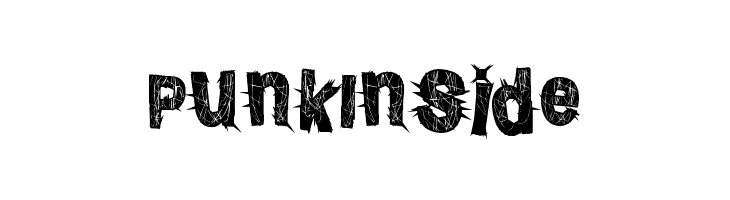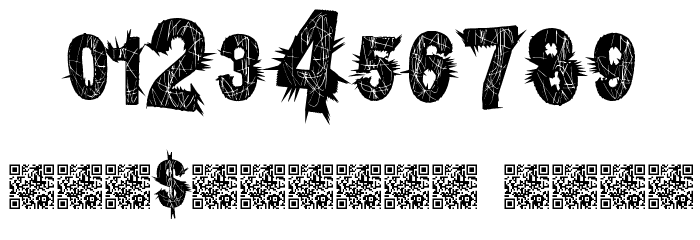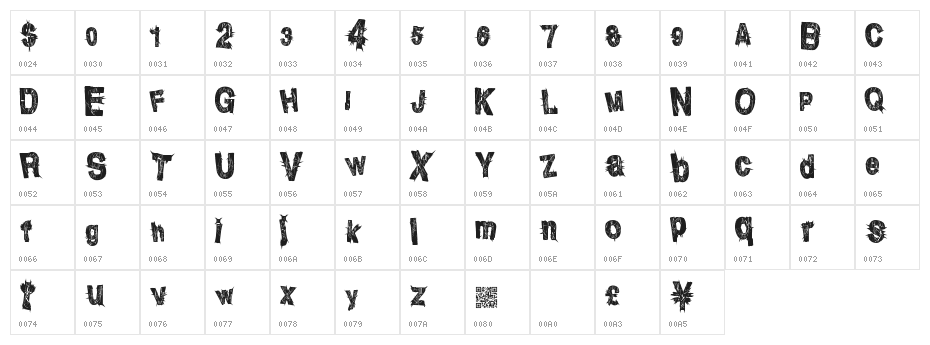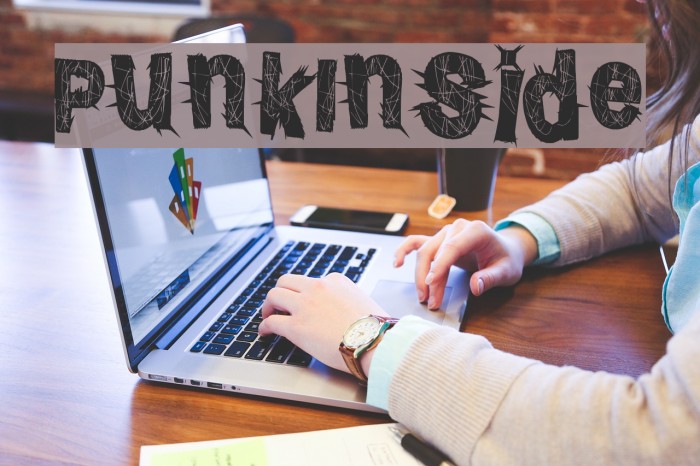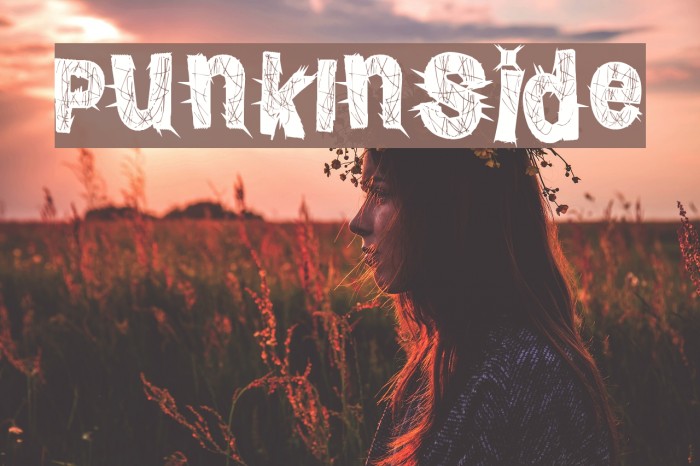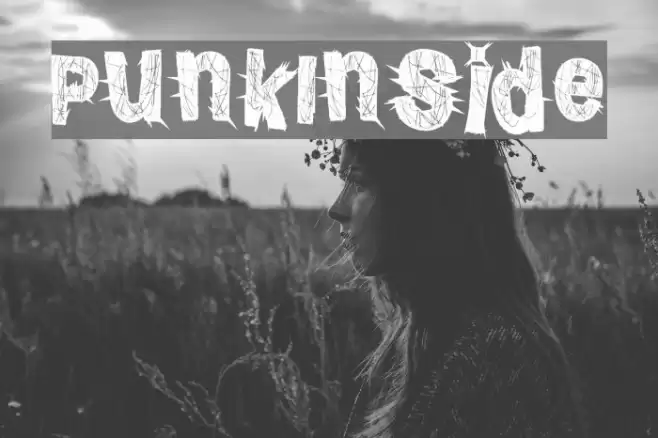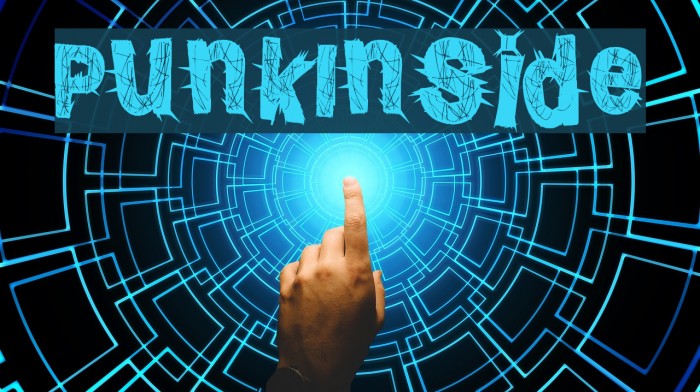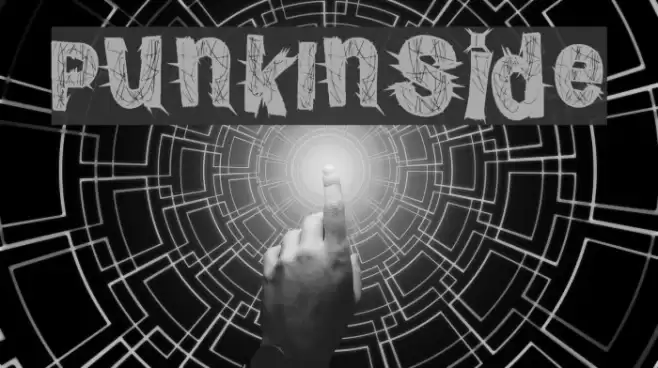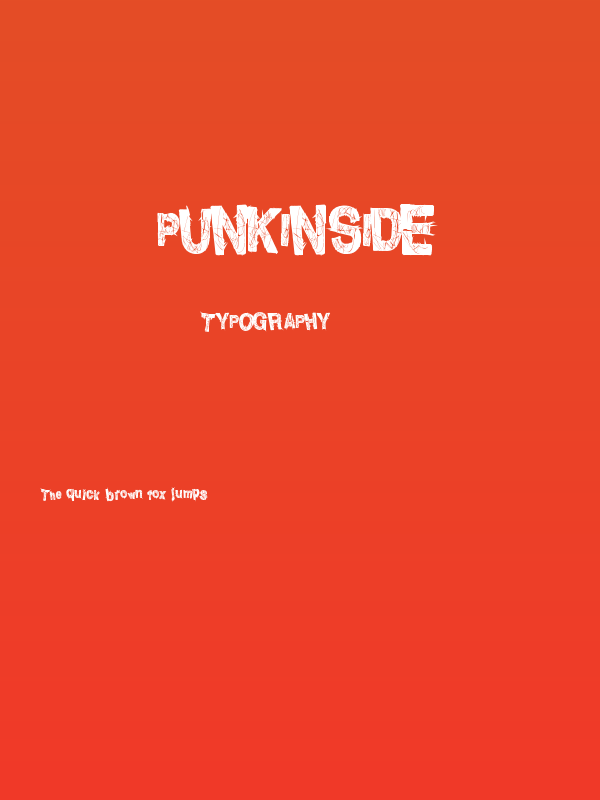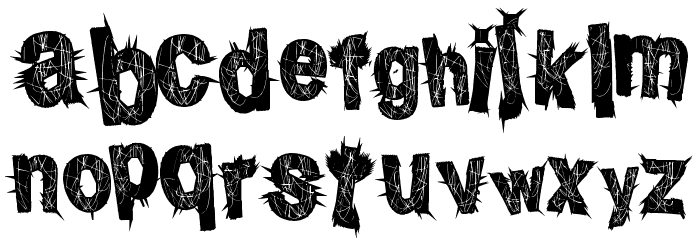
PunkInside Font
PunkInside Description
This font features a bold and edgy design with a distressed, grunge aesthetic. Each character appears to be torn or shredded, giving it a rebellious and chaotic feel. The uppercase and lowercase letters maintain a consistent style, with jagged edges and irregular shapes that convey a sense of movement and energy. The numerals and special characters follow the same design principles, ensuring a cohesive look across all glyphs. This font is perfect for projects that require a bold statement or a punk-inspired theme.
| Overall Style | Punk, Grunge, Edgy |
| Proposed Projects | Ideal for music album covers, posters, streetwear branding, and edgy graphic design projects. |